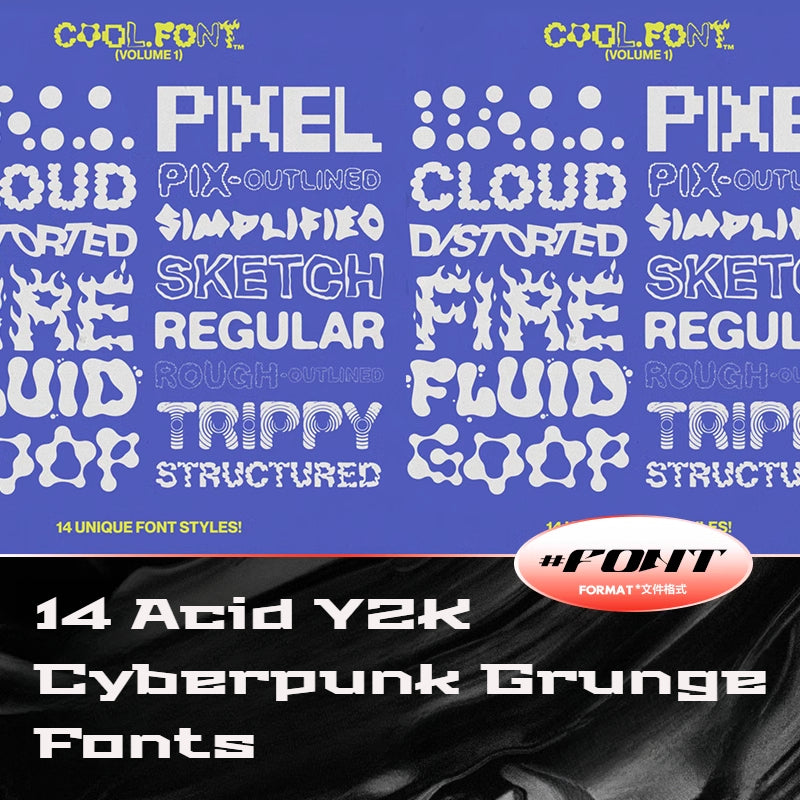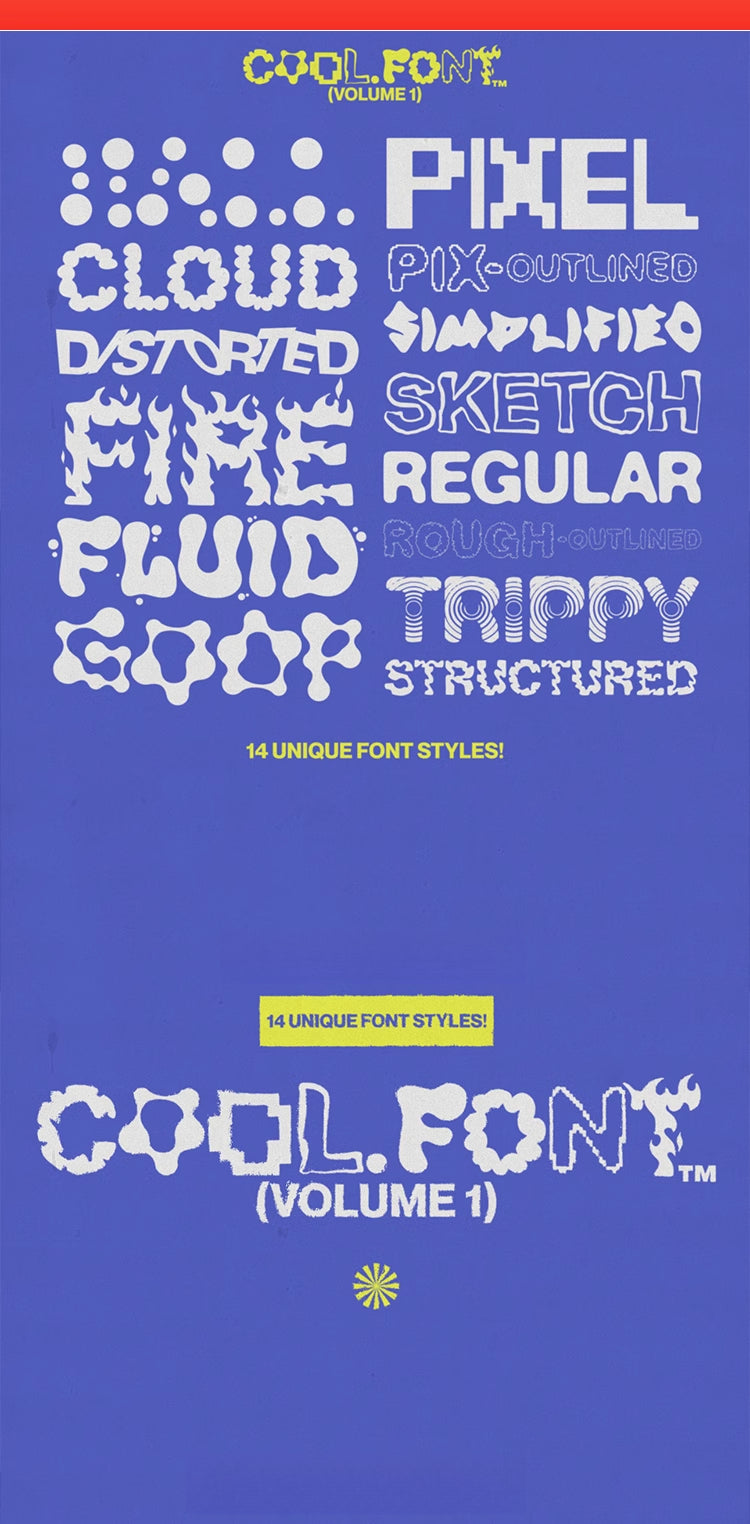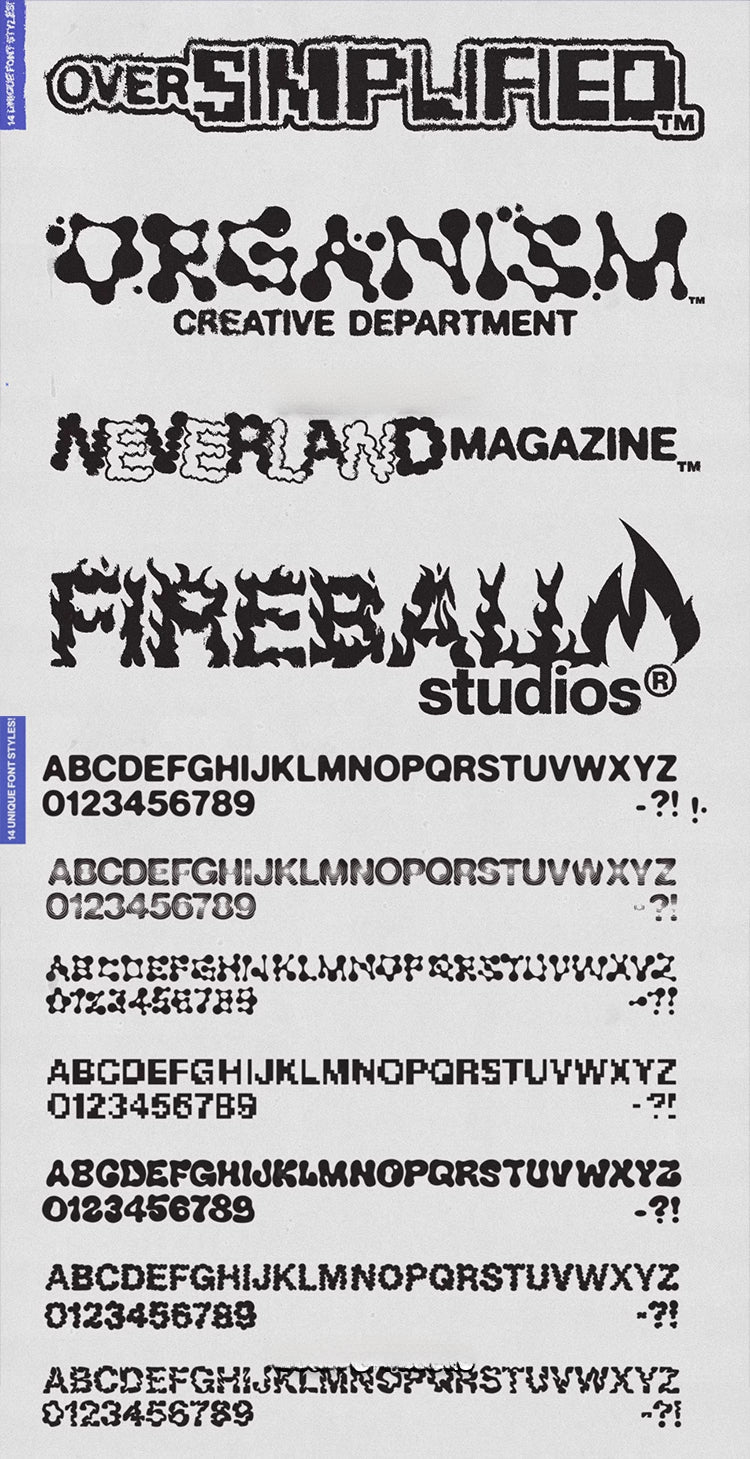
Unleash retro-futuristic creativity with this 14-font collection designed for Procreate, Photoshop, Illustrator, and more! Perfect for:
▶️ Y2K-themed designs | ▶️ Cyberpunk art | ▶️ Grunge posters | ▶️ Gaming UI | ▶️ Logos & branding